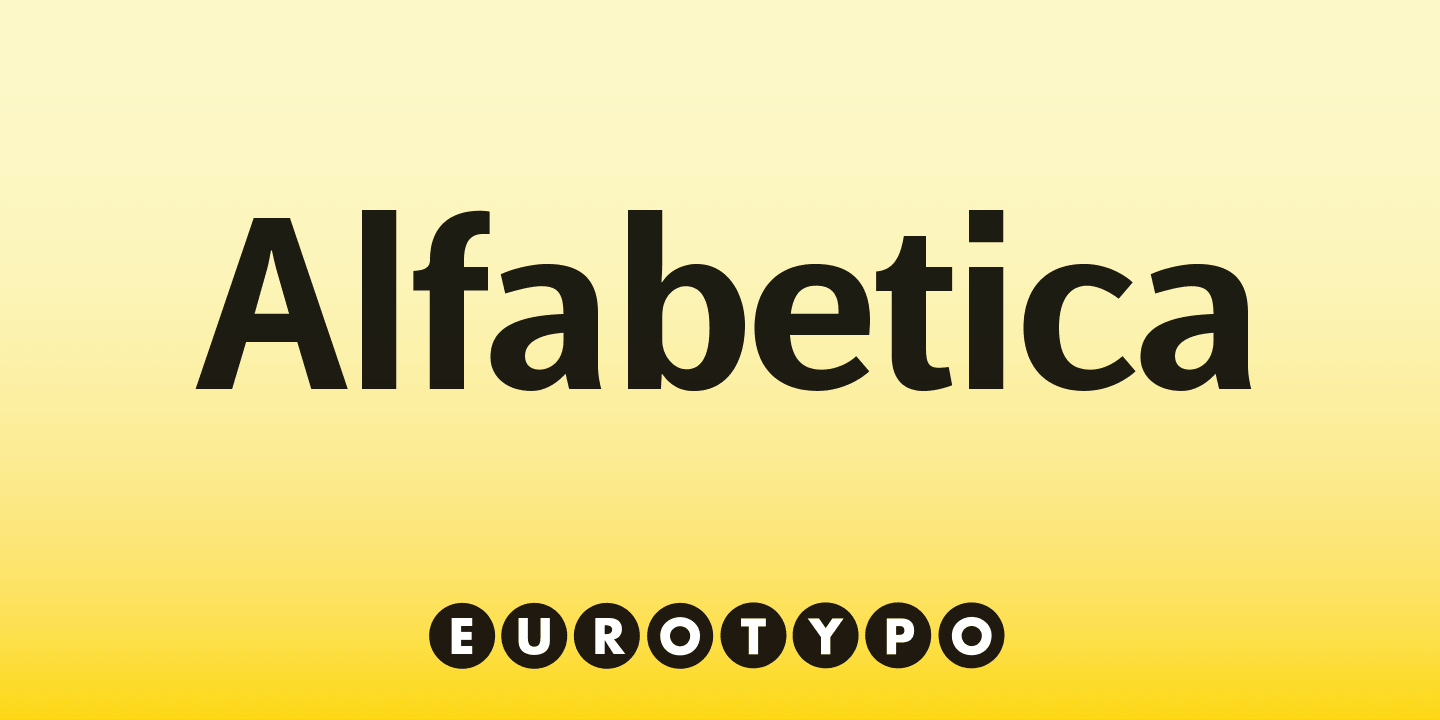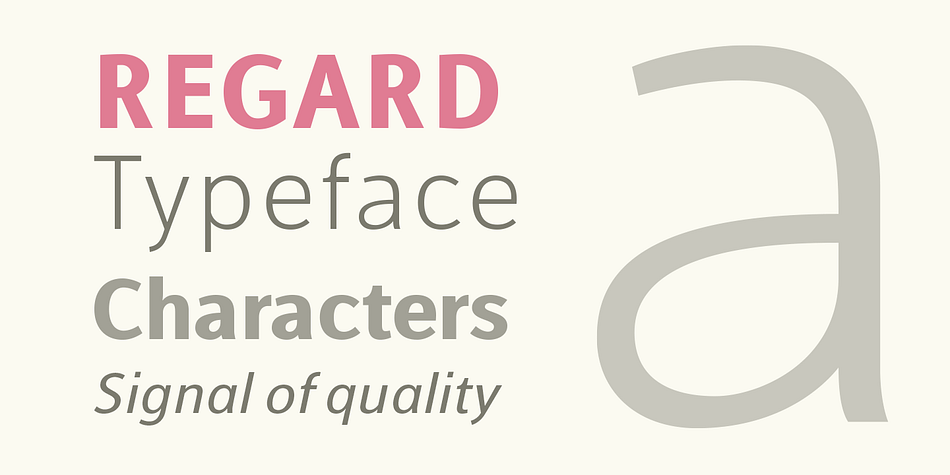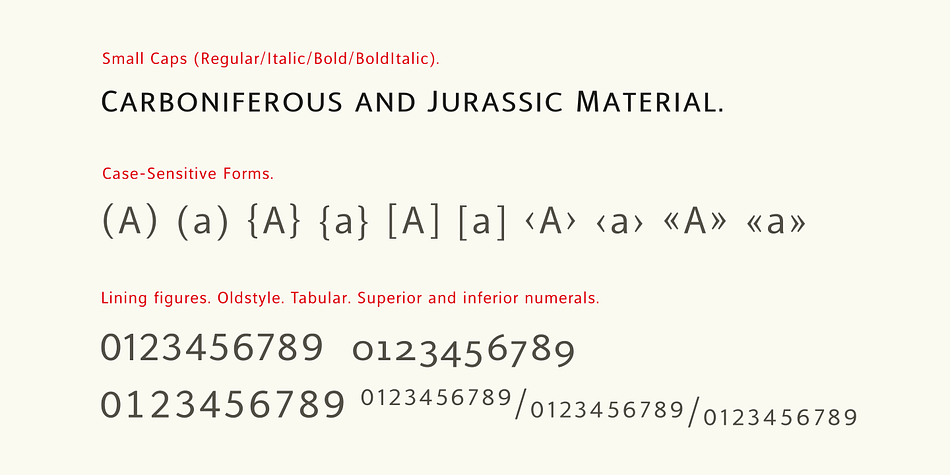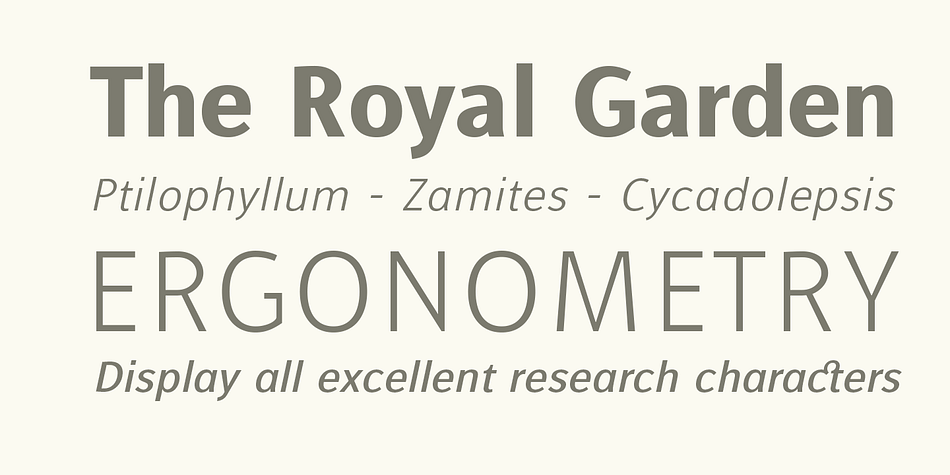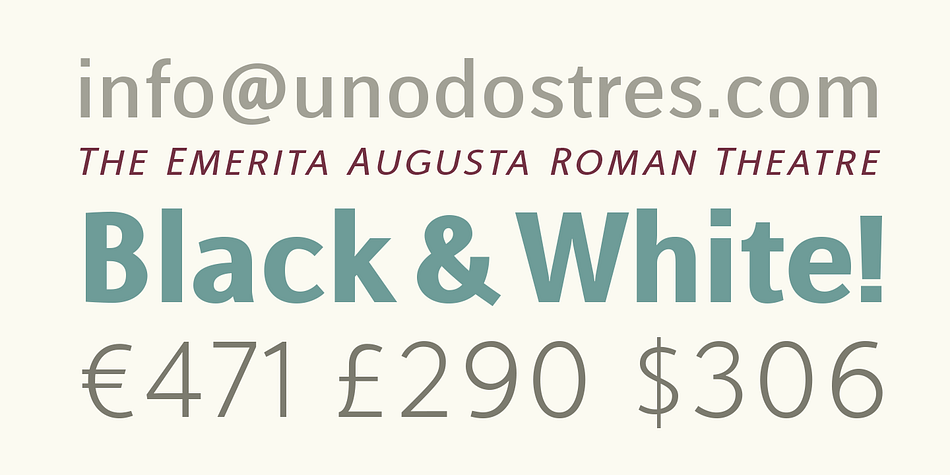
Designed by Olcar Alcaide, Alfabetica is a sans serif font family. This typeface has sixteen styles and was published by Eurotypo.
Alfabetica is a modern and humanist Sans Serif typeface.
We were looking for a new grotesque energetic but with some classical features.
The result of the design is a grotesque slightly condensed with soft strokes, open counters, and terminals; giving it a great readability with an esthetic elegance and sensitive appeal. Alfabetica comes in eight weights from Thin to Black, with a matching italic for every weight.
This family of fonts provides advanced typographical support with OpenType features such as CE languages, ligatures, old style numeral, case- sensitive forms, fraction and small capitals. Alfabetica is perfectly suited for texts, signage, magazines, web pages, packaging design, advertising, corporate identity, and logotypes.